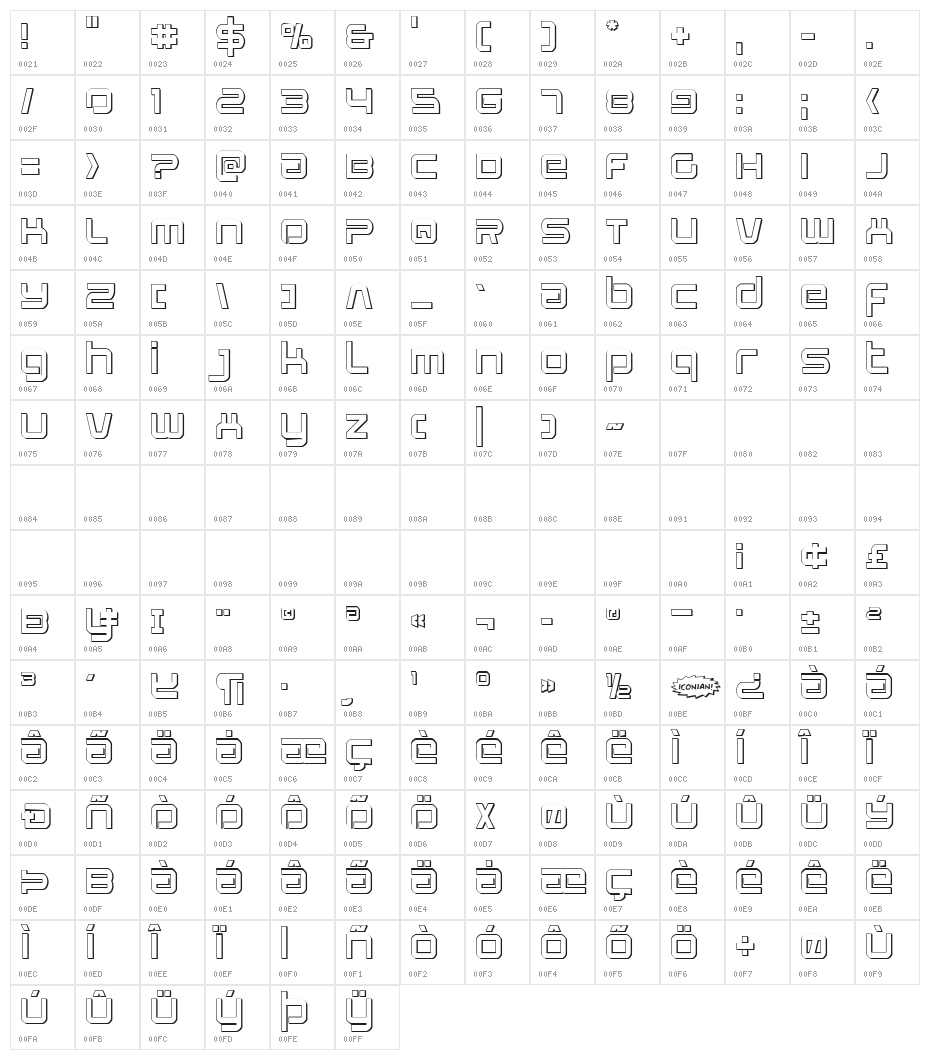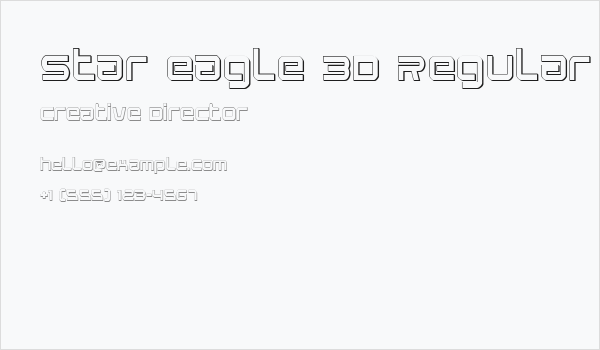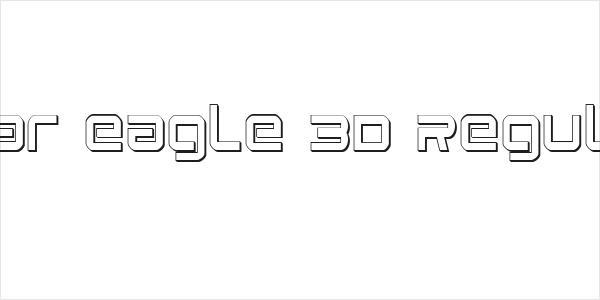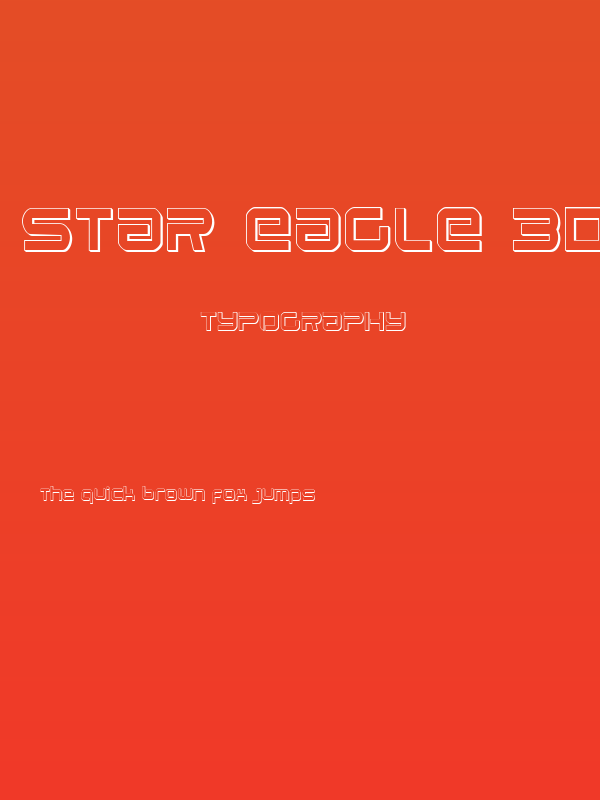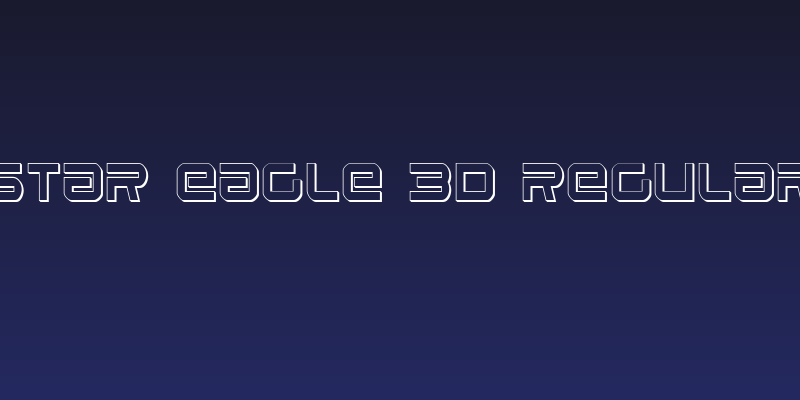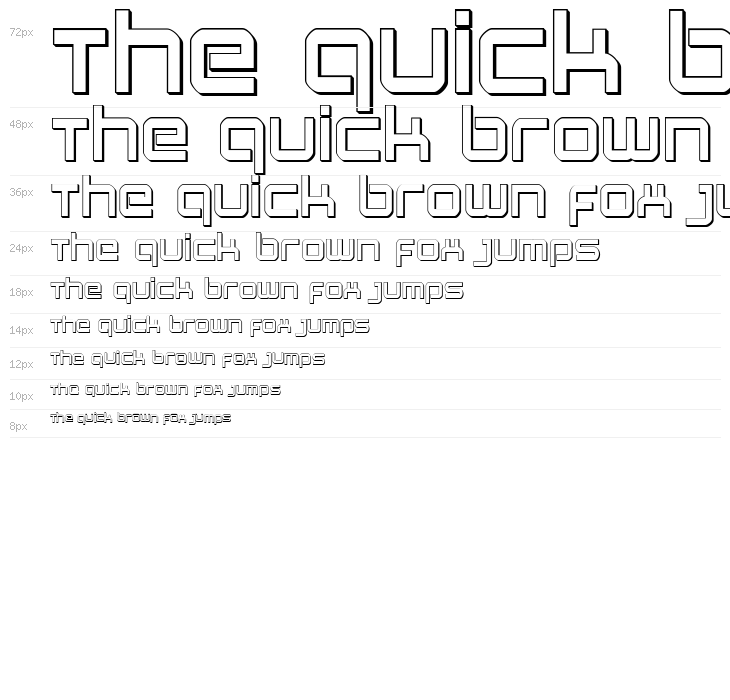
Star Eagle 3D Regular Font
Star Eagle 3D Regular Description
This font features a futuristic and geometric design, characterized by its bold, three-dimensional appearance. The letters are outlined with a consistent thickness, creating a hollow effect that adds depth and dimension. The angular and blocky style gives it a modern and tech-inspired look, making it ideal for projects that require a strong visual impact. The uppercase and lowercase characters maintain a uniform structure, while the numerals and special characters complement the overall aesthetic with their cohesive design. This font is perfect for creating eye-catching headlines, logos, and digital artwork.
| Proposed Projects | Ideal for sci-fi themed designs, tech logos, video game titles, and digital artwork. |